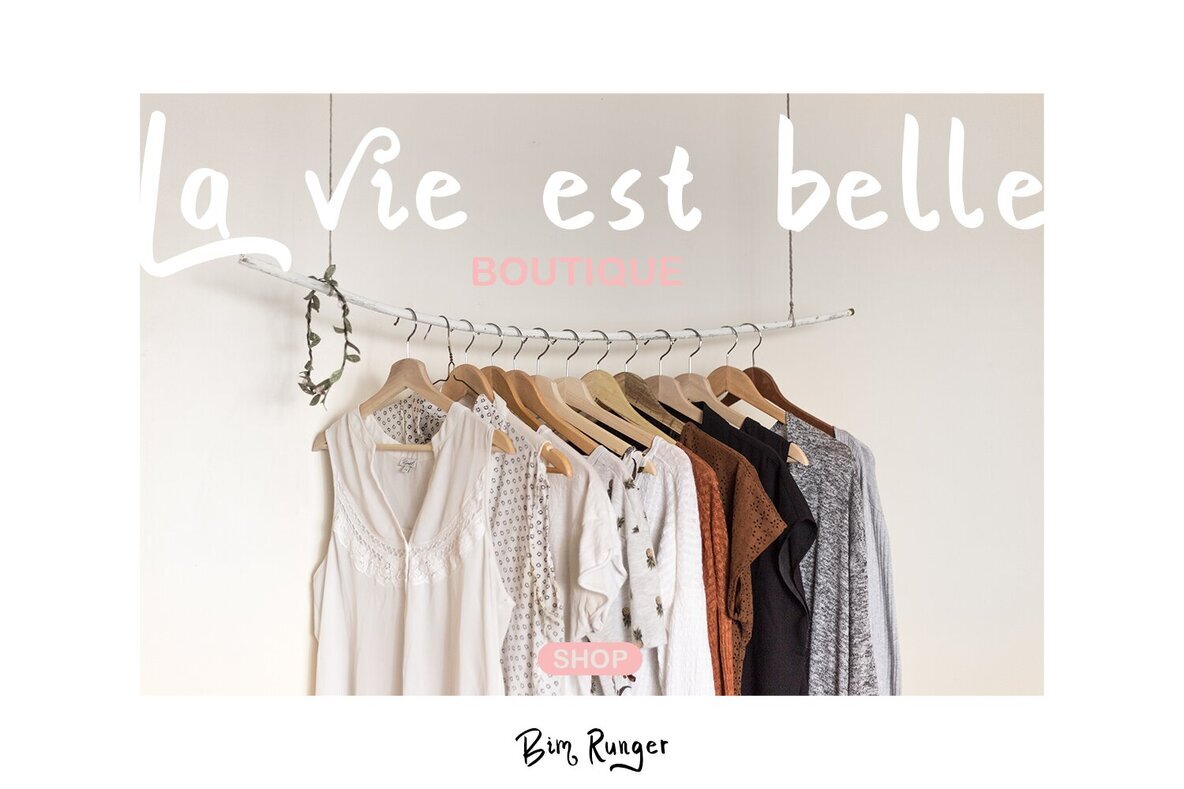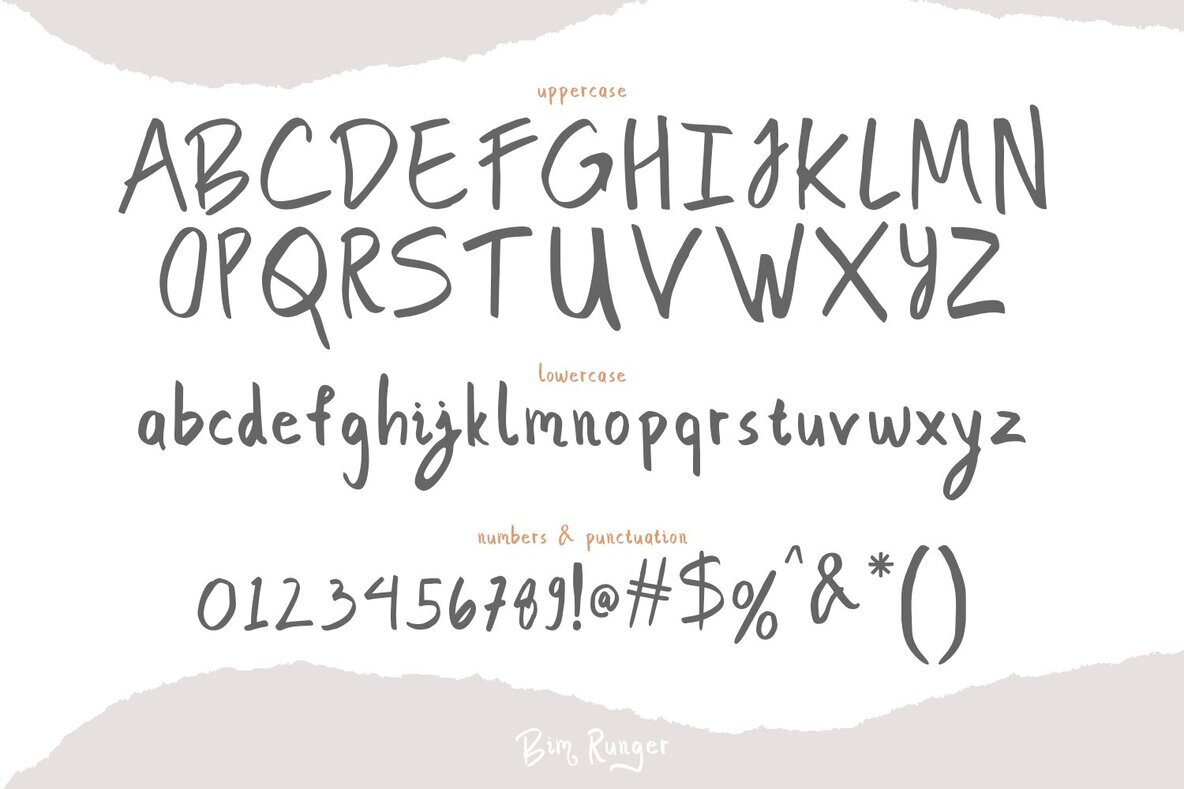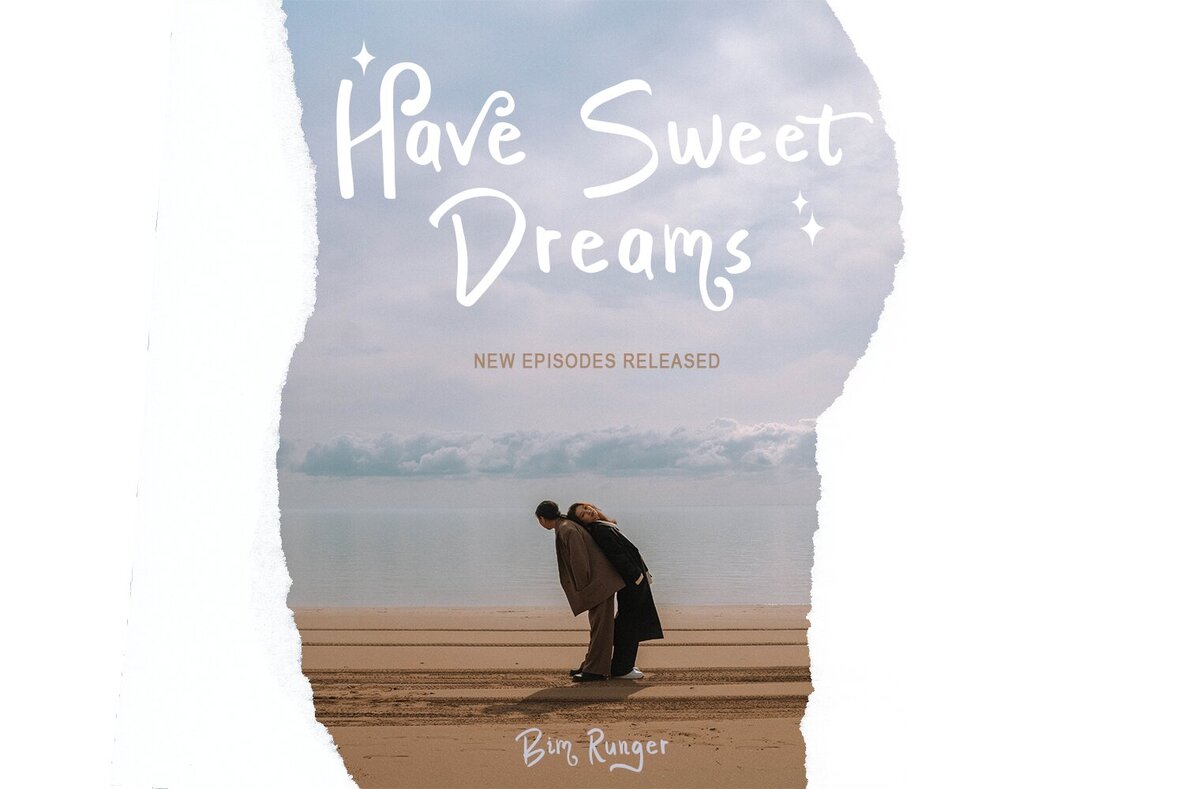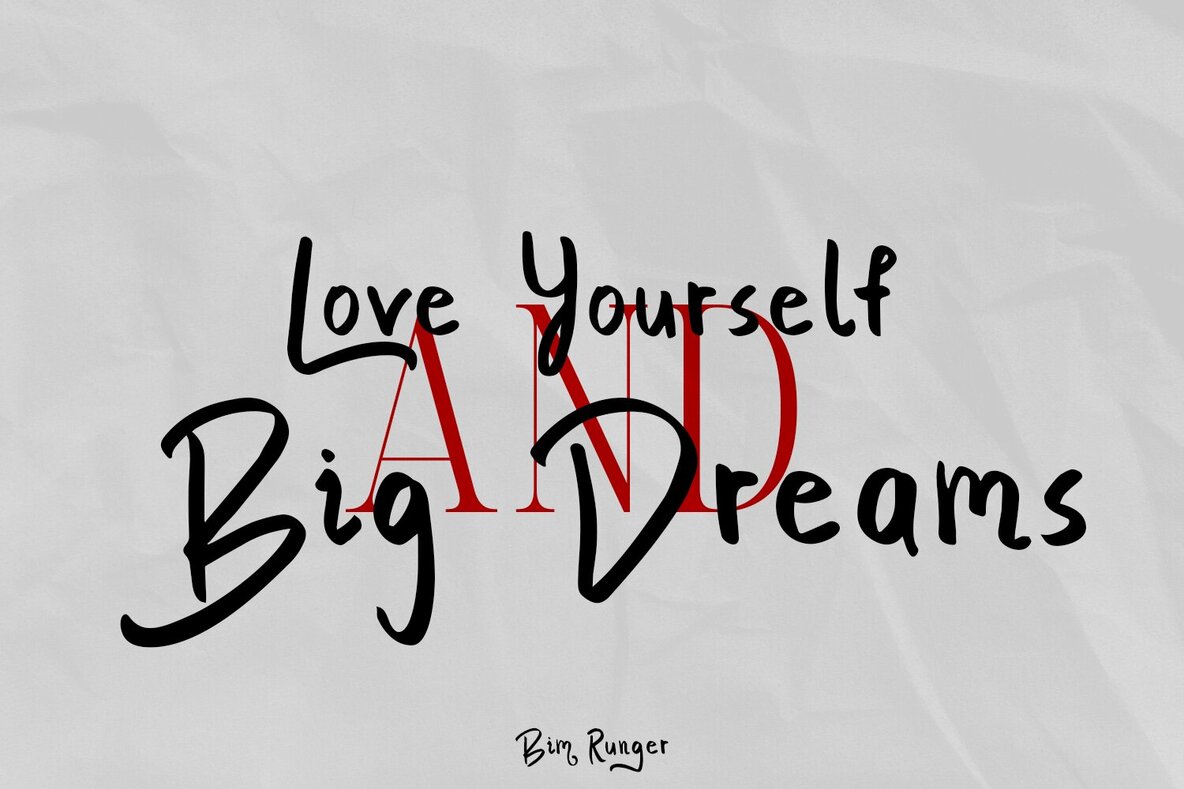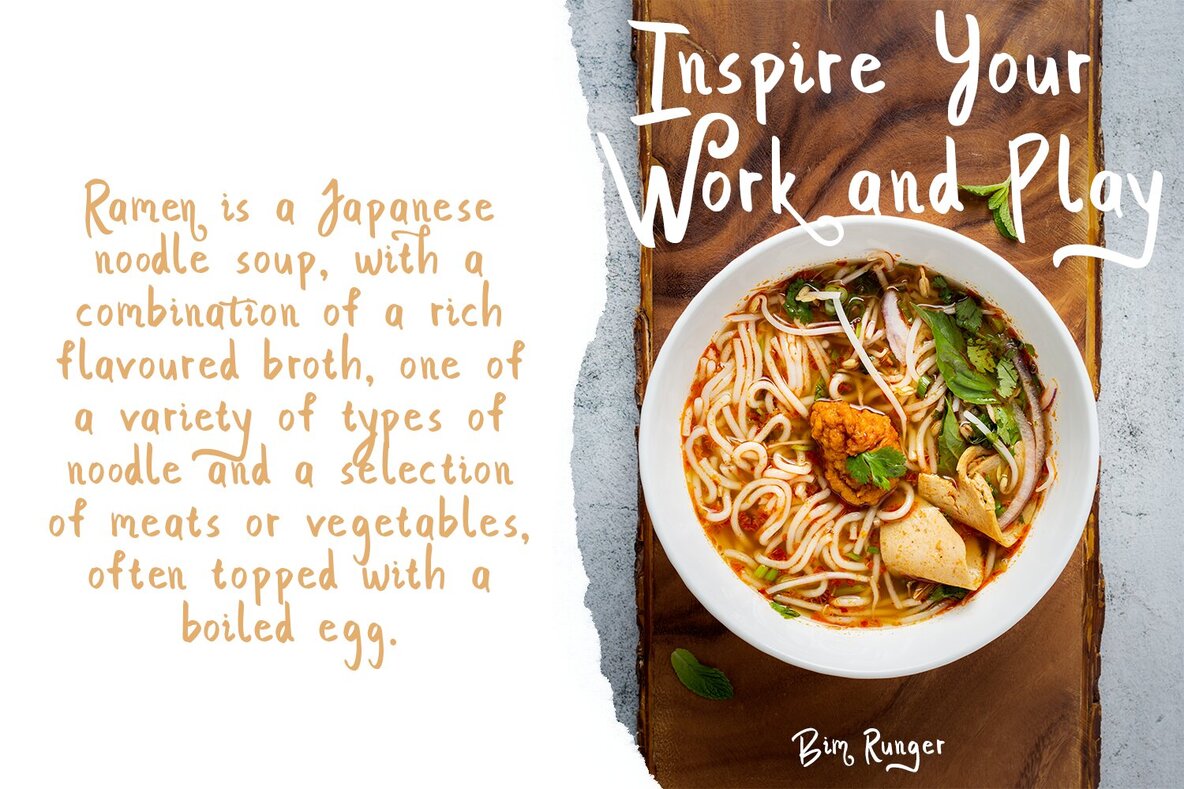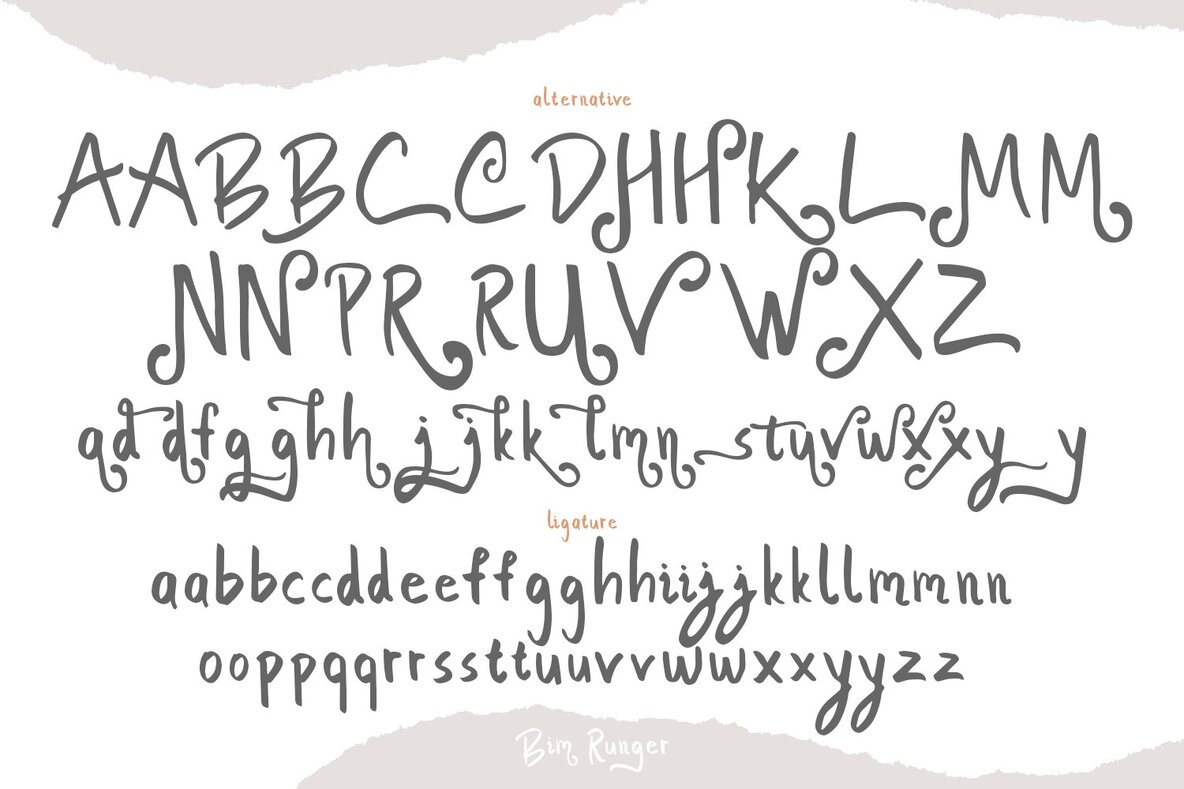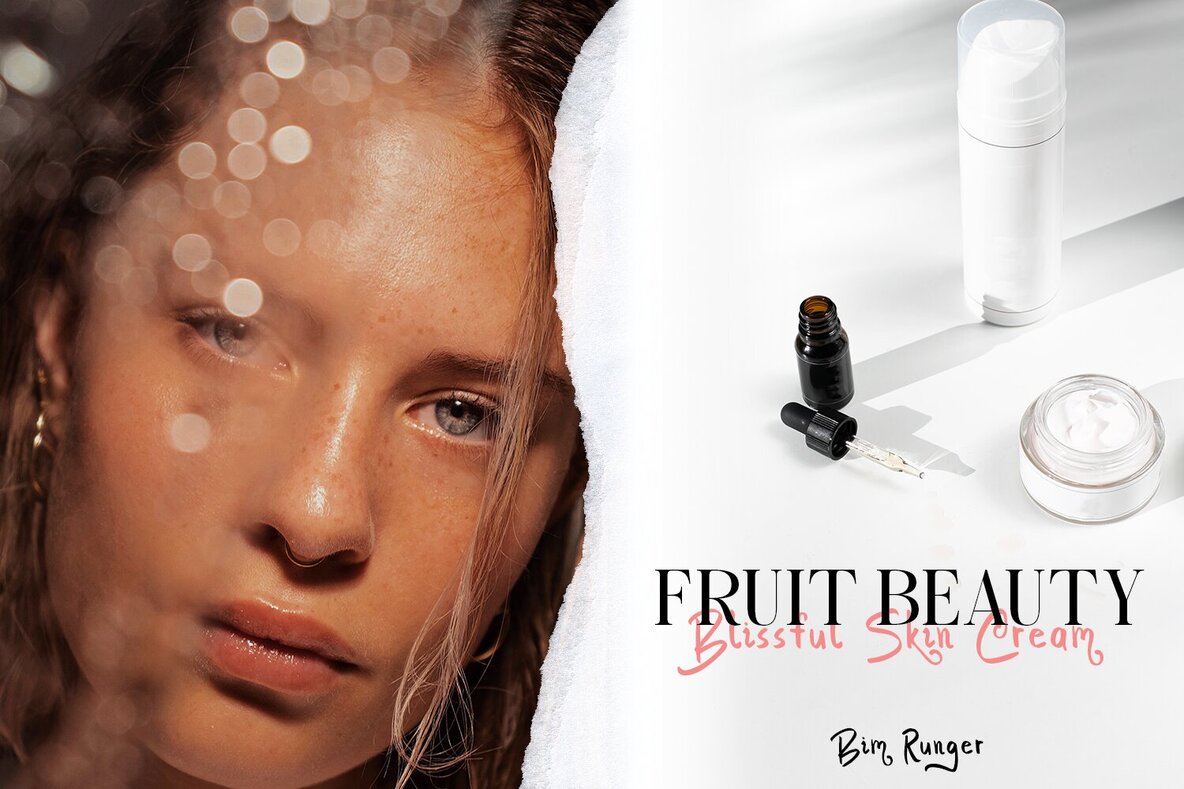
Bim Runger Font
Bim Runger Regular
Bim Runger offers a unique handwritten style with realistic detailing, complete with alternative characters and ligatures. This versatile font is ideal for book titles, branding projects, product packaging, invitations, quotes, labels, posters, and logos.Bim Runger: Realistic Handwritten Font with Alternatives and Ligatures